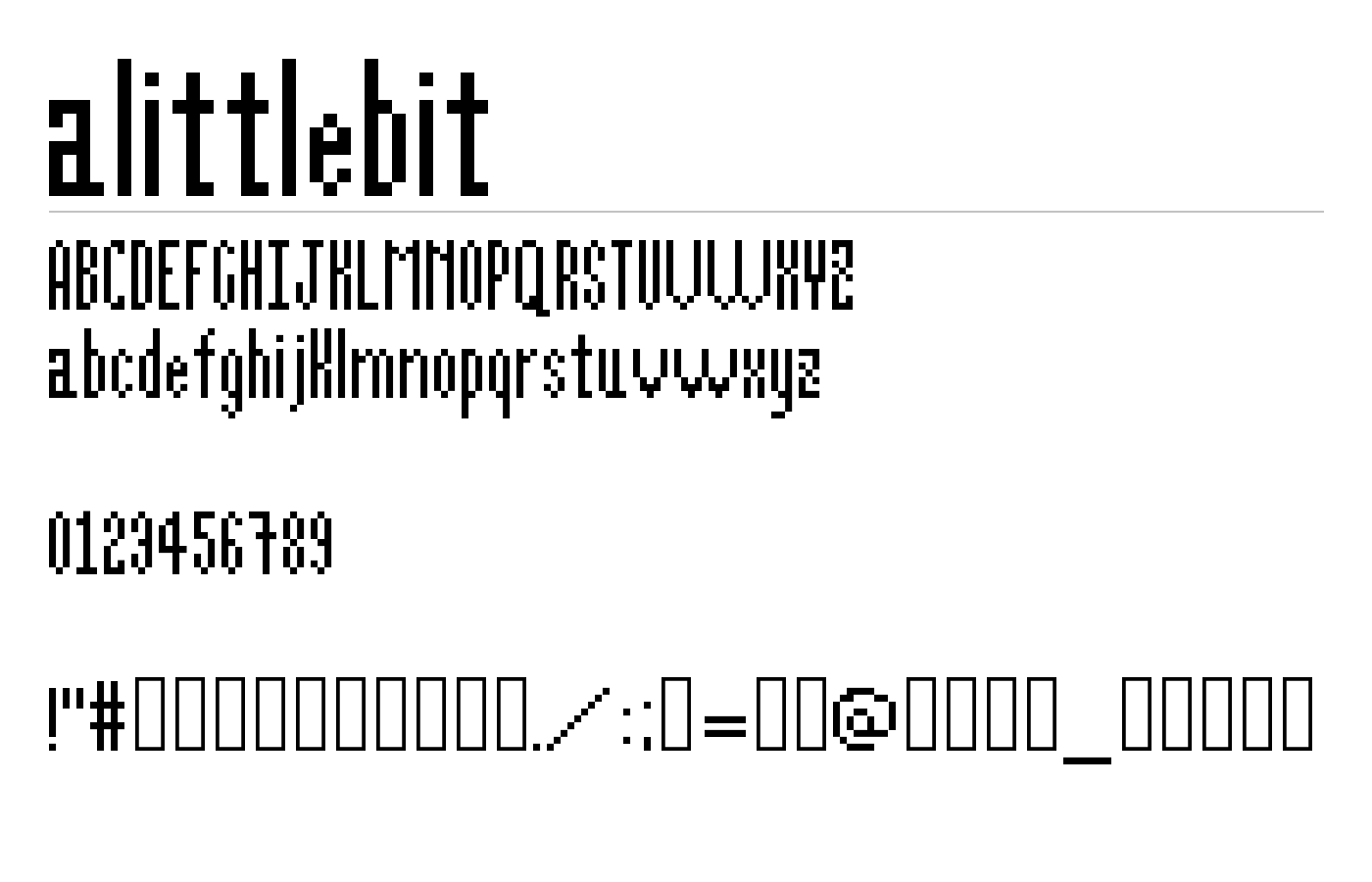
Alittlebit is a pixel-style sans serif font characterized by its tall, narrow letterforms and blocky, low-resolution look. Its distinct digital aesthetic with sharp, pixelated edges makes it ideal for retro, tech-inspired designs, gaming projects, or any context seeking a nostalgic, old-school computer vibe. This font works best in headlines, logos, and creative displays where a quirky, vintage digital charm is desired.
alittlebit Font
About alittlebit Font